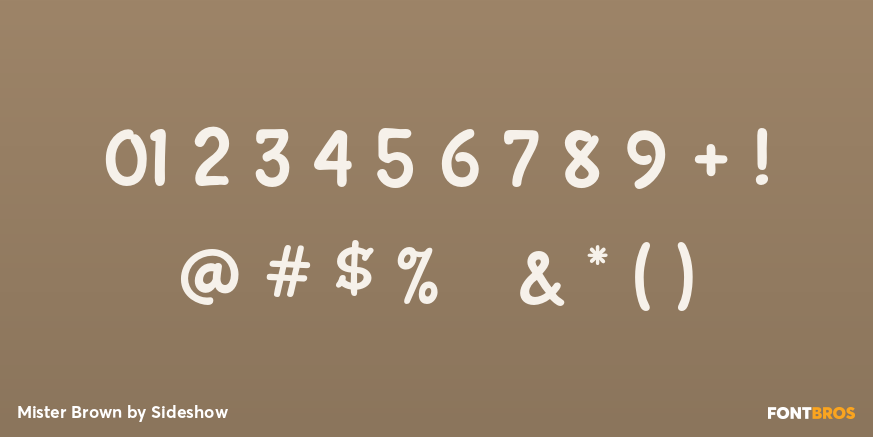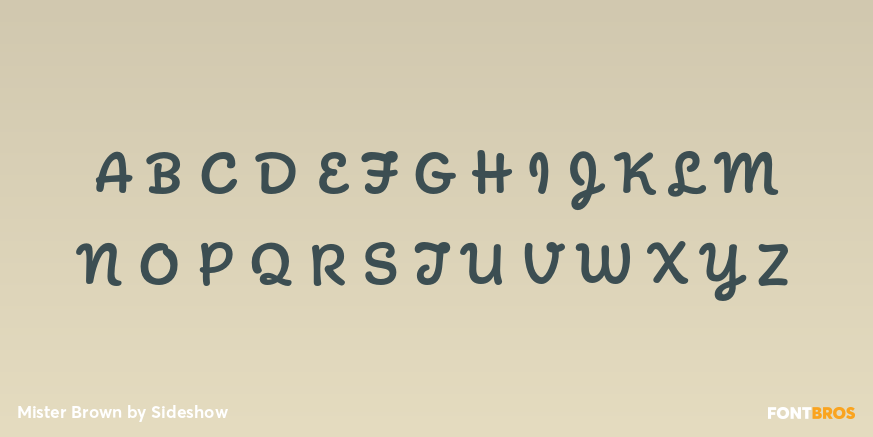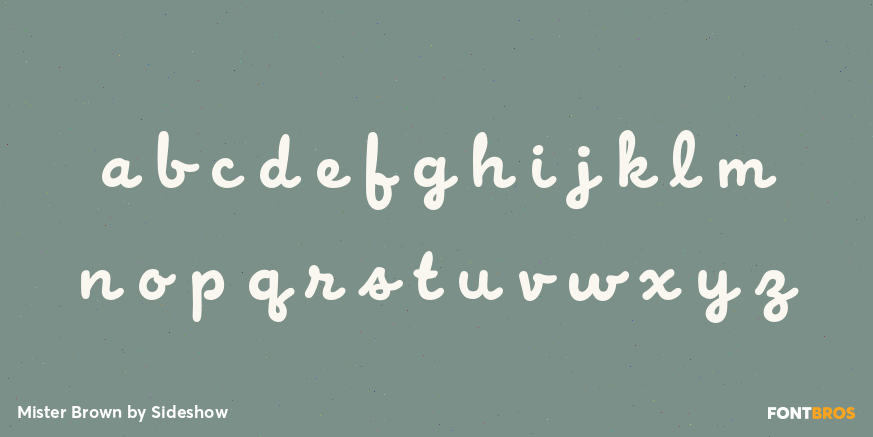
Mister Brown
Buy NowJust who is that handsome, refined gent? He's so modern. He's so stylish. He's so classy! Say hello to Mister Brown, the dapper new script from Sideshow. He's the kind of fine fellow you'll want to have at all of your gatherings. Mister Brown is replete with automatic OpenType magic to make sure he always sets connections smoothly and easy on the eyes.
Mister Brown is a worldly fellow supporting a multitude of languages and displaying his etiquette with a host of ordinal and ligature combinations! When making your guest list, be sure that Mister Brown is at the top!